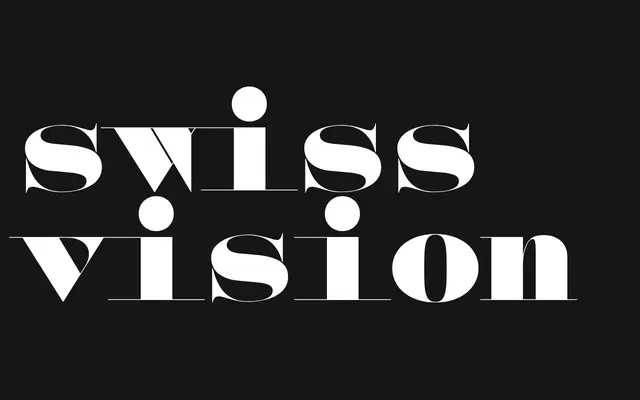
Azteca
Newglyph · Ian Party
A didone-monospaced hybrid by Ian Party, distinguished by extra-long serifs and high stroke contrast across three weights with a variable contrast axis.
Ian Party combined the rigid, vertical structure of 18th-century didone type with the fixed-width logic of monospaced fonts, producing a face with distinctive long serifs and sharp contrast between thick and thin strokes. Quirks include perfectly round terminals on lowercase letters and jaguar fang-like stems on the uppercase W. Three named styles — Headline, Kingsize and Text — are accompanied by a variable font with a customisable contrast axis running from 1 to 100.
Azteca blends didone high-contrast structure with monospaced geometry, featuring extra-long serifs and dramatic thick-to-thin stroke contrast that push it firmly into the display category rather than text use.